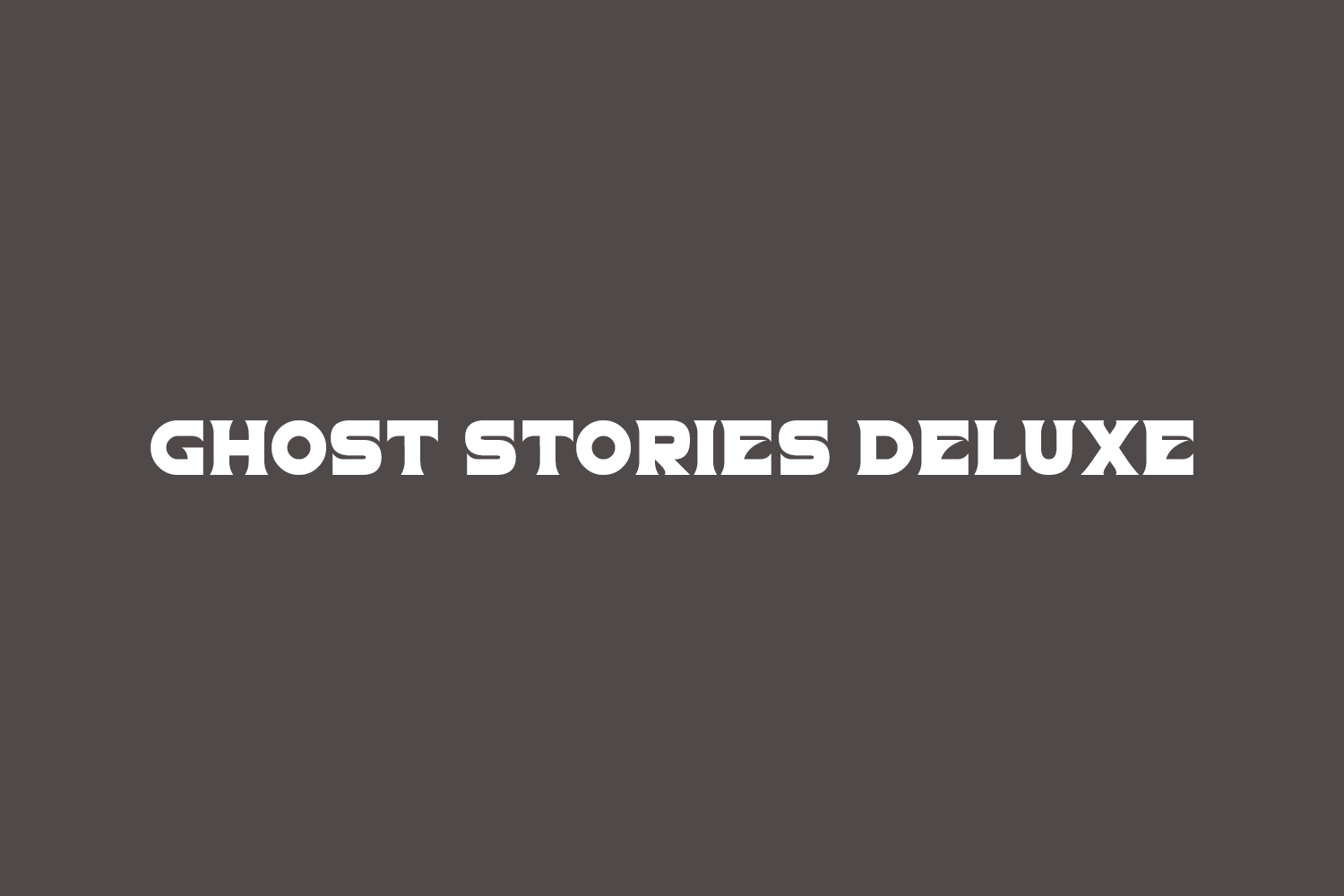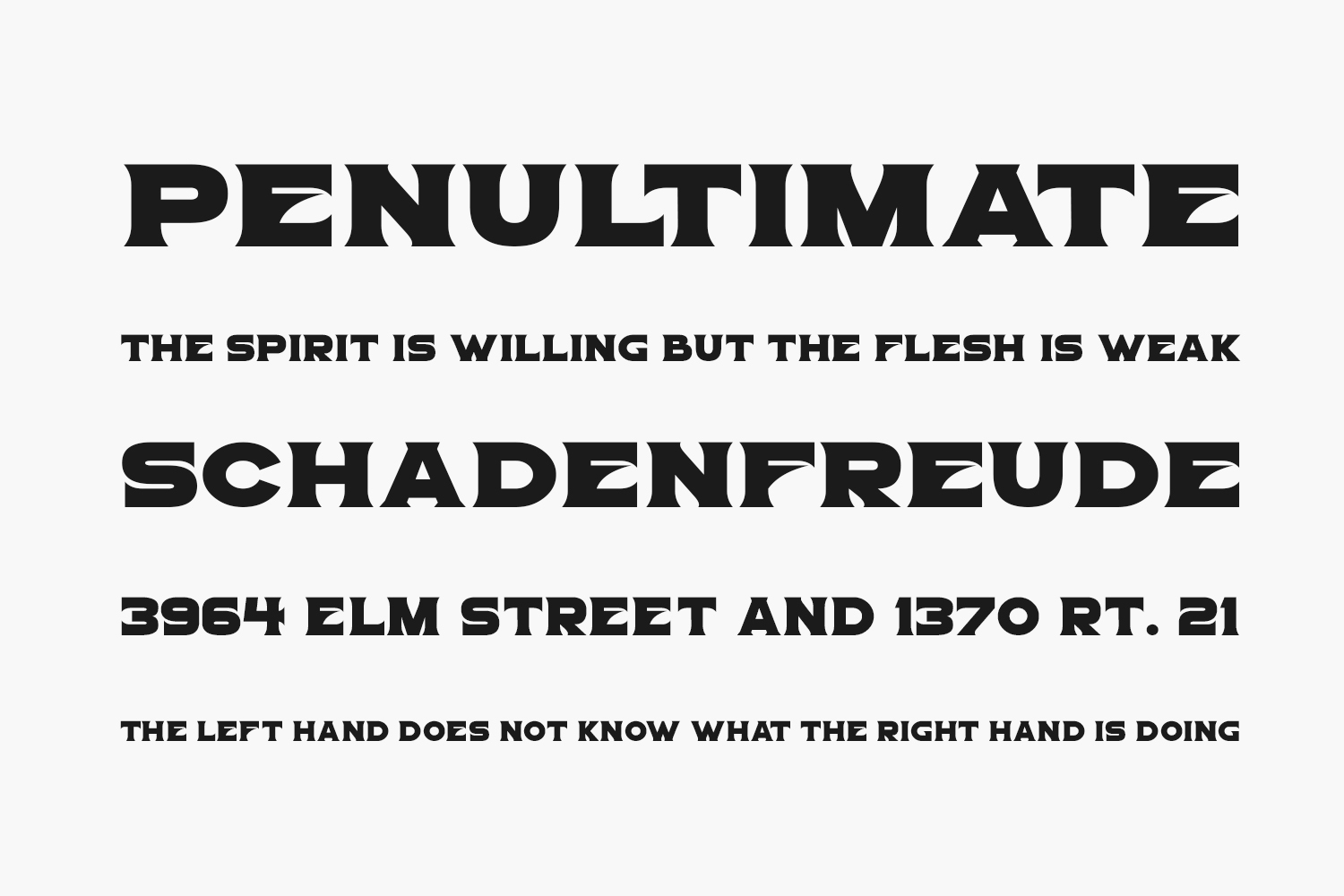
Explore the eerie allure of Ghost Stories Deluxe Free Font Family, a daring sans-serif typeface featuring sharp curves and a unique touch of horror. Ideal for spine-chilling tales, Halloween motifs, and all-encompassing fiction applications. Unleash the haunting vibe in your designs. Ghost Stories Deluxe Free Font is free for personal use only. Please purchase the full version for commercial use.
Designed by Hawtpixel